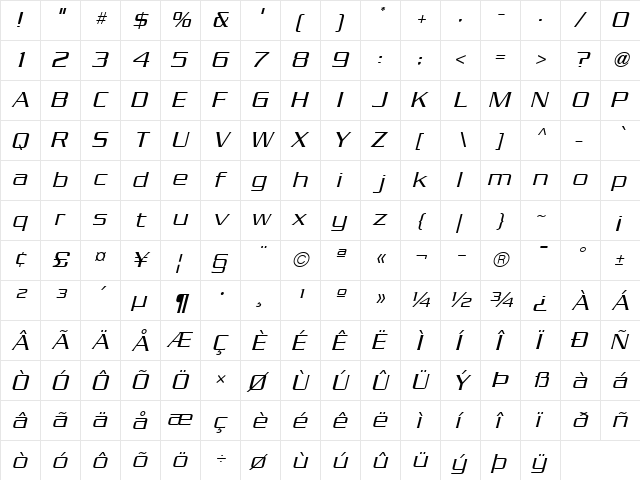
Serpentine ICG Light Oblique
Design Context for Serpentine ICG Light Typeface
Serpentine ICG Light is a composed and adaptable typeface that performs quietly and consistently across a wide range of design contexts. The dynamic lean of this cut emphasises speed and emphasis in any layout. Its slender proportions lend an understated elegance to any composition.
Pro Tip: Use Serpentine ICG Light for emphasis, pull quotes, and subheadings where its slanted energy can add rhythm to the layout.